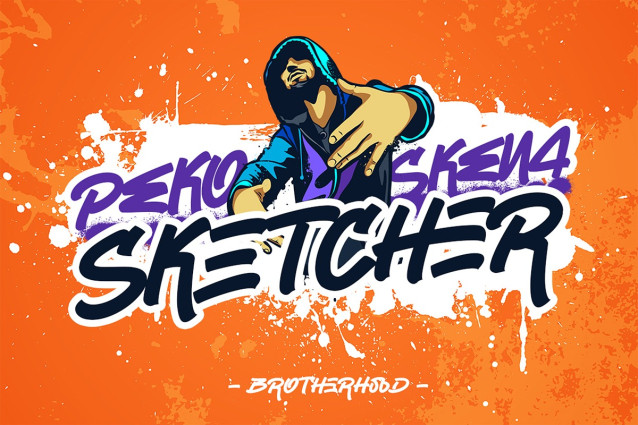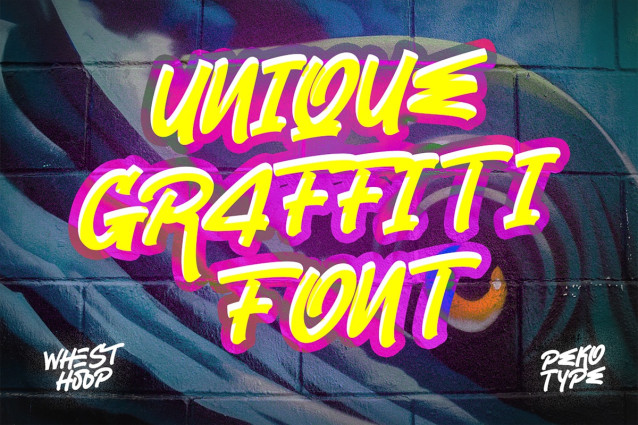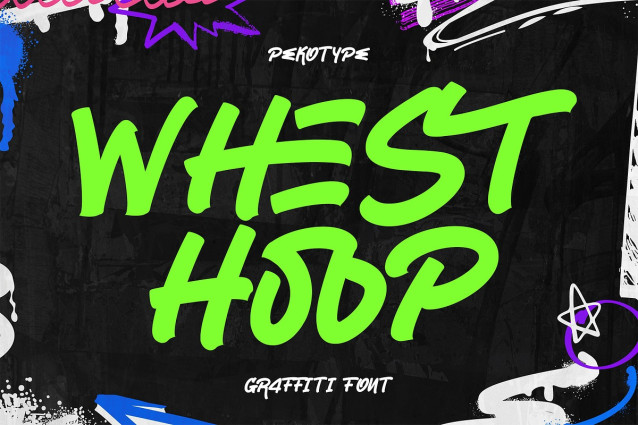
Whest Hoop Font
Whest Hoop Font – Bold Graffiti Display Font Unleash the urban spirit with WHEST HOOP, a bold graffiti display font that blends street-style attitude with modern versatility. Inspired by the energy of skate culture, city walls, and hip-hop beats, WHEST HOOP delivers strong character, unique letterforms, and clean legibility—perfect for making your design stand out.
Whether you’re crafting branding, logos, skateboard graphics, packaging, event posters, or edgy social media content, WHEST HOOP brings an authentic, streetwise edge to every project.